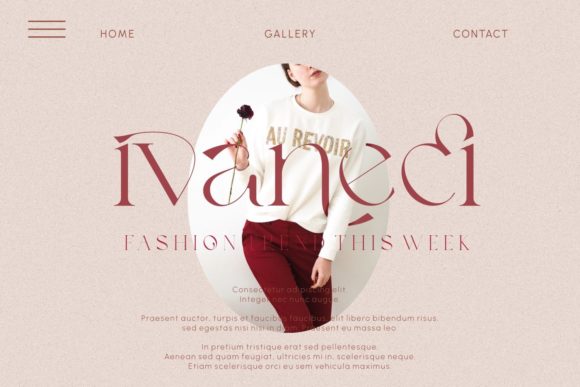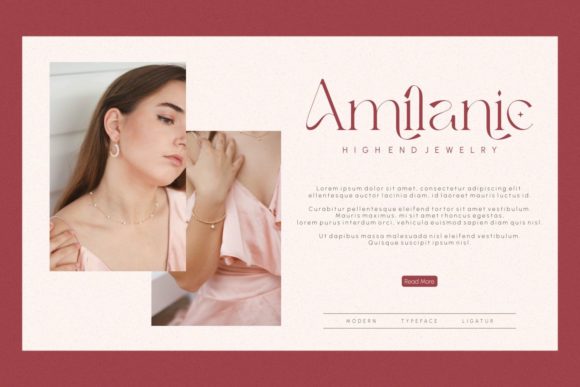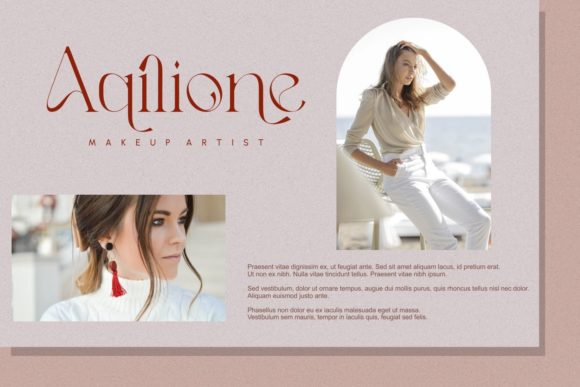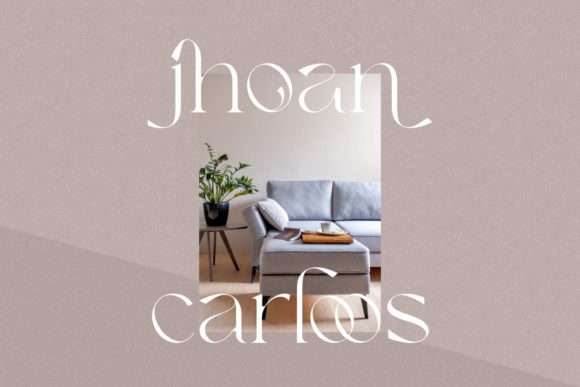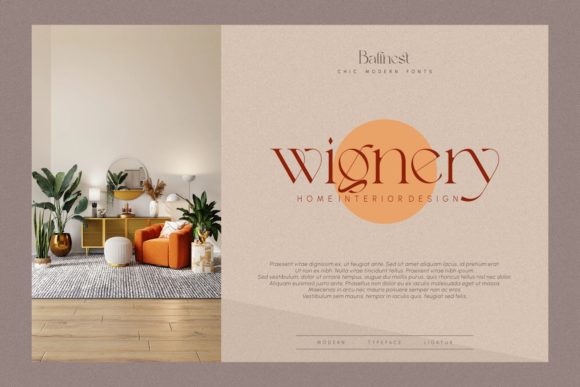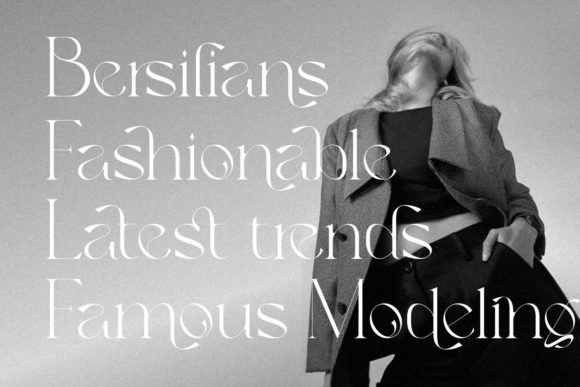
Balinest Font: Elevate Your Creations with Elegance and Sophistication
In the world of typography, fonts play a crucial role in conveying the message and aesthetic of a design. For designers and crafters looking for a touch of elegance and sophistication, the Balinest font is an excellent choice. This thin lettered and delicate serif font is not only trendy and stylish but also versatile, making it perfect for a wide range of creative projects.
What Makes Balinest Font Stand Out?
Balinest is a beautifully crafted font that stands out for its thin and delicate lettering. The serif details add a touch of sophistication, making it ideal for designs that require a level of elegance. Whether you’re working on a branding project, a wedding invitation, or a packaging design, Balinest can elevate your creations to a new level.
Key Features of Balinest Font
- Thin Lettered and Delicate: The font’s thin lettering and delicate features make it perfect for designs that require a subtle yet elegant touch.
- Serif Details: The serif details add a level of sophistication, making it suitable for a wide range of creative projects.
- Trendy and Stylish: Balinest is a trendy and stylish font that can add a modern touch to your designs.
- PUA Encoded: The font is PUA encoded, which means you can access all of the glyphs and swashes with ease. This feature makes it easy to use and customize the font to suit your design needs.
Benefits of Using Balinest Font
Using Balinest font in your designs comes with several benefits. Firstly, it can add a level of elegance and sophistication to your creations. The font’s versatility makes it suitable for a wide range of projects, from branding and advertising to packaging and wedding invitations.
Additionally, the font’s PUA encoding makes it easy to use and customize. You can access all of the glyphs and swashes with ease, allowing you to experiment with different design elements and create unique and creative designs.
Who Can Benefit from Using Balinest Font?
Balinest font is perfect for a wide range of designers and crafters, including:
- Graphic Designers: Graphic designers can use Balinest font in a variety of projects, from branding and advertising to packaging and marketing materials.
- Wedding Designers: Wedding designers can use the font to create beautiful and elegant wedding invitations, stationery, and other wedding-related materials.
- Crafters: Crafters can use Balinest font to create a variety of handmade products, such as cards, gift tags, and other paper crafts.
- Digital Artists: Digital artists can use the font to add a touch of elegance and sophistication to their digital art.
Tips for Using Balinest Font
Here are a few tips for using Balinest font in your designs:
- Pair it with Other Fonts: Experiment with pairing Balinest font with other fonts to create a unique and creative design.
- Use it for Headings: Use Balinest font for headings and titles to add a touch of elegance and sophistication.
- Experiment with Colors: Experiment with different colors to find the perfect combination that suits your design.
In conclusion, Balinest font is a beautiful and elegant serif font that can elevate your creations to a new level. Its thin lettering and delicate features make it perfect for designs that require a touch of sophistication. With its PUA encoding, the font is easy to use and customize, making it a great choice for designers and crafters. Whether you’re working on a branding project, a wedding invitation, or a packaging design, Balinest font is an excellent choice.
So, if you’re looking for a font that can add a touch of elegance and sophistication to your designs, look no further than Balinest font. With its versatility and ease of use, it’s sure to become a favorite in your design arsenal.